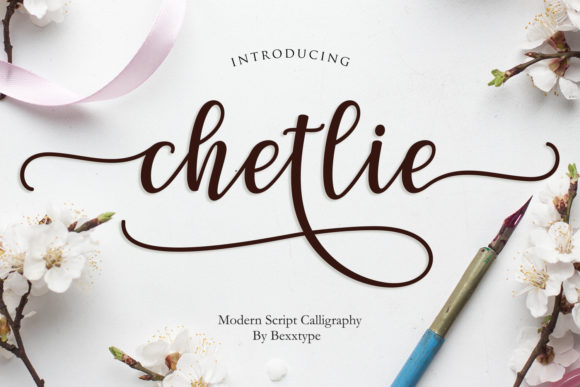
Chetlie Script Font: Elevate Your Designs with a Fresh and Modern Calligraphy Style
Are you tired of using the same old fonts in your designs? Look no further than the Chetlie Script Font, a fresh and modern script that is sure to elevate your projects to the next level. With its handmade calligraphy style, decorative characters, and dancing baseline, Chetlie Script is the perfect choice for designers and crafters looking to add a touch of elegance and sophistication to their work.
What is Chetlie Script Font?
Chetlie Script Font is a modern script font that is designed to mimic the look and feel of handmade calligraphy. It features a range of decorative characters, including swashes, flourishes, and ligatures, that give it a unique and distinctive look. The font has a dancing baseline, which means that the letters are not aligned to a straight line, giving it a sense of movement and energy.
Key Features of Chetlie Script Font
- Handmade Calligraphy Style: Chetlie Script Font has a unique, handmade calligraphy style that gives it a personal and elegant touch.
- Decorative Characters: The font features a range of decorative characters, including swashes, flourishes, and ligatures, that can be used to add a touch of sophistication to your designs.
- Dancing Baseline: The font has a dancing baseline, which gives it a sense of movement and energy.
- Modern and Fresh: Chetlie Script Font is a modern and fresh take on traditional calligraphy, making it perfect for designers and crafters looking for a unique and stylish font.
What Can I Use Chetlie Script Font For?
Chetlie Script Font is a versatile font that can be used for a wide range of projects, including:
- Wedding Invitations: The font’s elegant and sophisticated style makes it perfect for wedding invitations, save the dates, and other wedding-related projects.
- Branding and Packaging: Chetlie Script Font can be used to create beautiful and eye-catching branding and packaging materials, such as logos, business cards, and product labels.
- Stationery and Gift Tags: The font’s decorative characters and dancing baseline make it perfect for creating beautiful stationery and gift tags.
- Signage and Displays: Chetlie Script Font can be used to create eye-catching signage and displays for events, exhibitions, and retail environments.
Why Choose Chetlie Script Font?
There are many reasons why you should choose Chetlie Script Font for your next project. Here are just a few:
- Unique and Distinctive: Chetlie Script Font has a unique and distinctive style that will set your designs apart from the crowd.
- Elegant and Sophisticated: The font’s elegant and sophisticated style makes it perfect for projects that require a touch of luxury and refinement.
- Easy to Read: Despite its decorative nature, Chetlie Script Font is easy to read, making it perfect for use in body text and other applications where readability is important.
- Highly Versatile: The font can be used for a wide range of projects, from wedding invitations to branding and packaging materials.
| Font Name | Chetlie Script Font |
| Author | Bexx Type |
In conclusion, Chetlie Script Font is a fresh and modern script font that is perfect for designers and crafters looking to add a touch of elegance and sophistication to their work. With its handmade calligraphy style, decorative characters, and dancing baseline, Chetlie Script is a versatile font that can be used for a wide range of projects. Whether you’re creating wedding invitations, branding and packaging materials, or signage and displays, Chetlie Script Font is sure to elevate your designs to the next level.